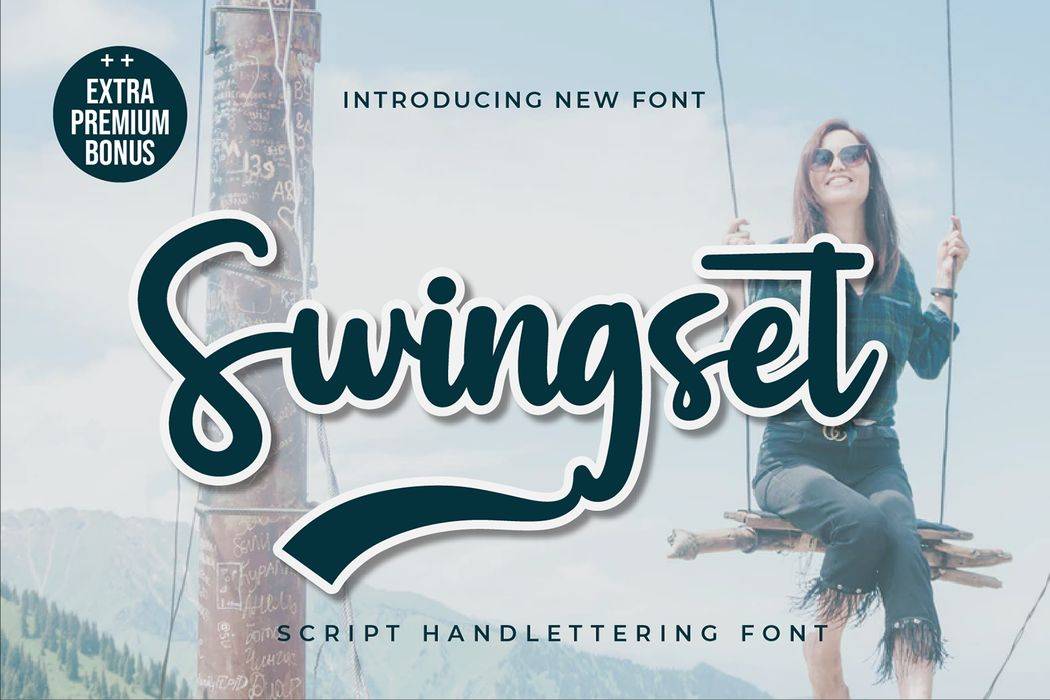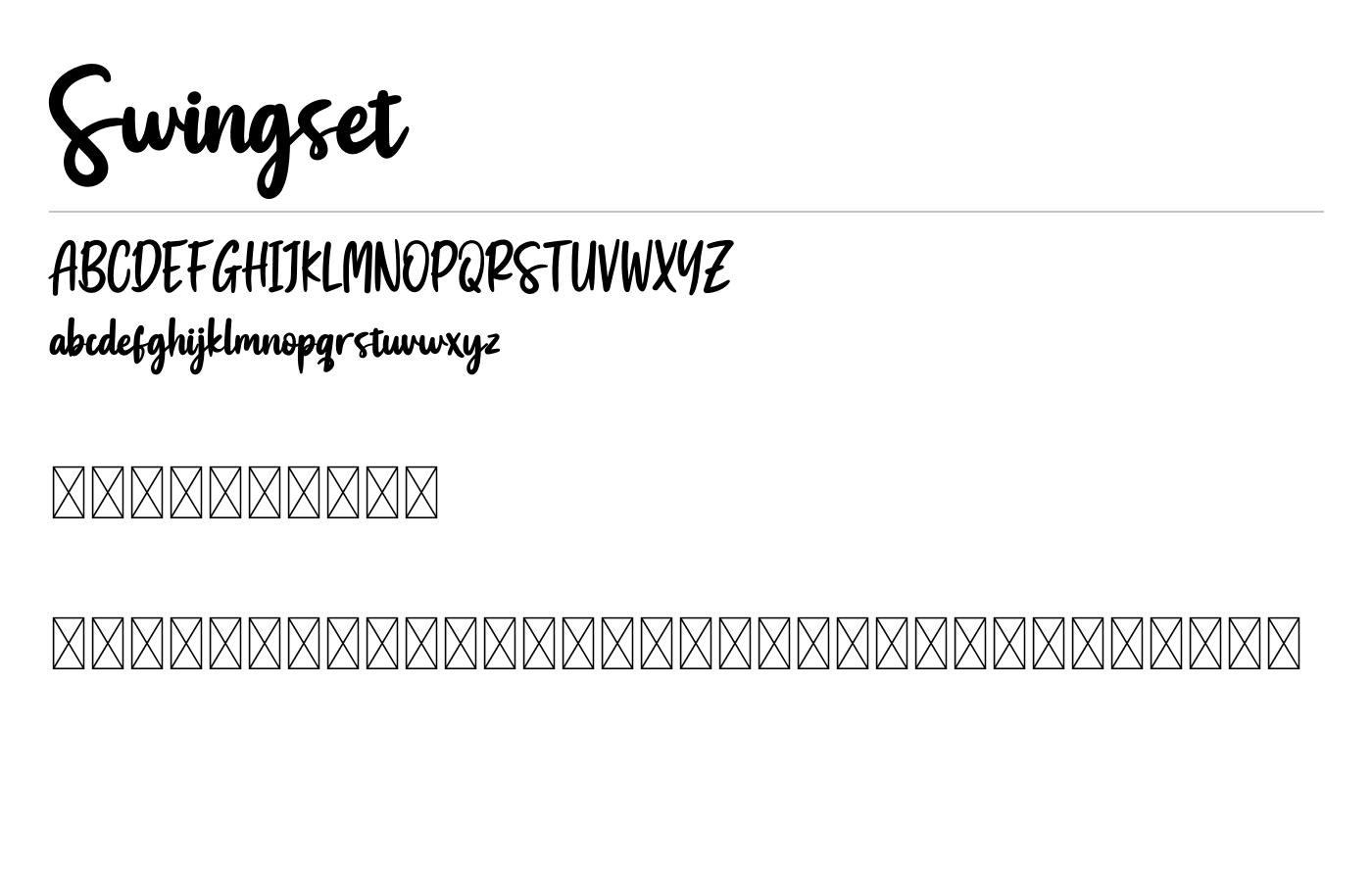
Swingset is a lively, casual script font with a friendly and approachable feel, featuring smooth, flowing strokes and a moderate weight that balances playfulness with readability. Its handwritten style, with distinct uppercase and lowercase letters, makes it perfect for branding, invitations, or projects that want to convey warmth and personality. This font works well in logos and headlines where a personal, informal touch is desired.
Swingset Font
About Swingset Font